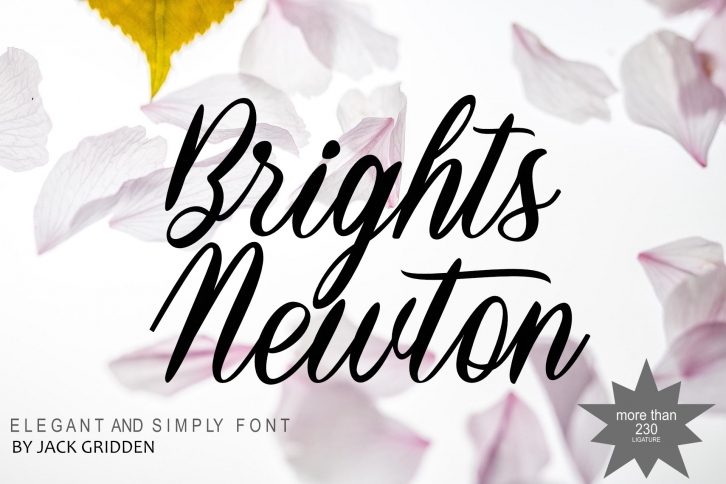
Brights Newton is a delicate, elegant, and flowing handwritten font. It has beautiful and well-balanced characters, and as a result, it matches a wide pool of designs. This font is PUA encoded which means you can access all glyphs and swashes with ease!